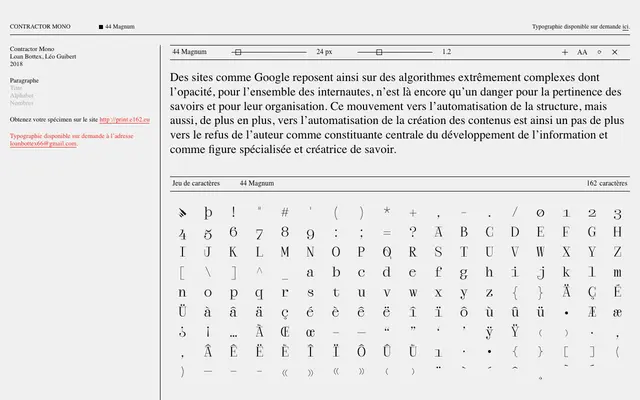
Contractor Mono
E162 · Loan Bottex, Léo Guibert · 2018
A monospaced typeface by Loan Bottex and Léo Guibert, released in 2018 through the French independent foundry E162, available on request.
Designed by Loan Bottex and Léo Guibert and released in 2018, Contractor Mono is a monospaced typeface from the small French foundry E162. The family covers 162 characters and is distributed by request rather than through a conventional storefront. A printed specimen is available via a dedicated print site, reflecting the foundry's considered approach to distribution.
A monospaced typeface explicitly labelled Mono, with a single upright style and no evident italic or width variants, designed for typographic use in both body and display contexts.